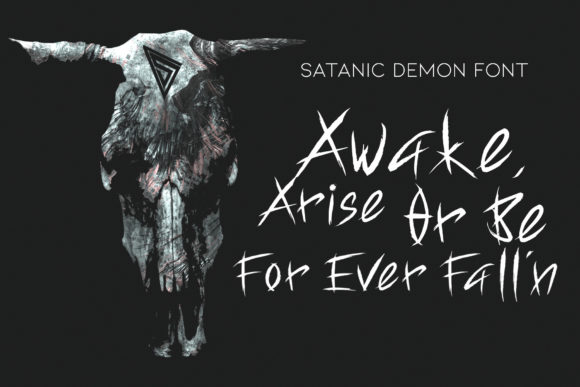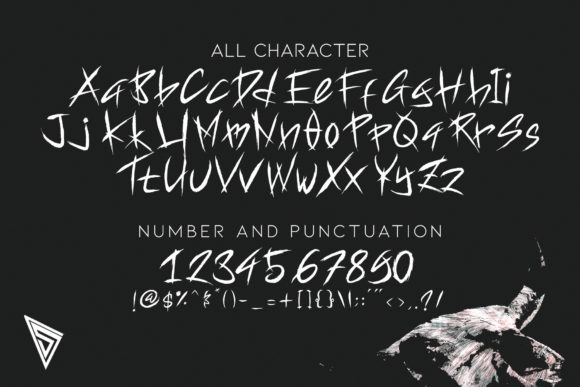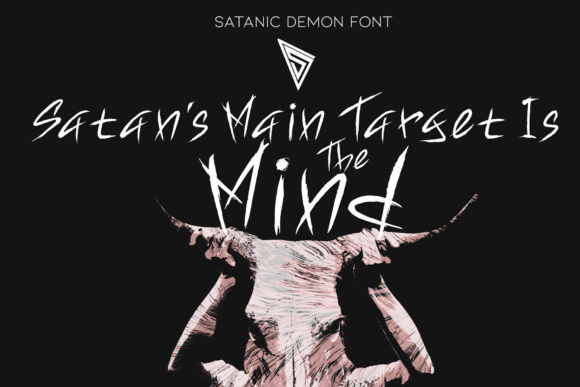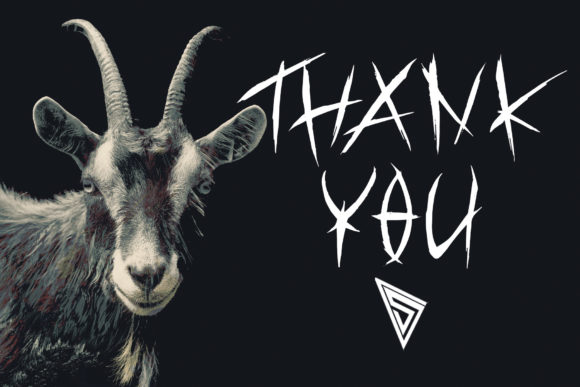
Introduction to Satanic Demon Font
Remember that moment when you’re brainstorming ideas for a creative project, and the perfect font just slips your mind? You’ve got the concept, the colors, and the design, but something’s missing – that one special touch that sets your work apart. For designers looking to add a touch of edginess to their projects, the Satanic Demon Font is here to save the day.
This unique handwritten font is perfect for those informal creative projects that need a high-quality, attention-grabbing font. With its bold and quirky style, the Satanic Demon Font is ideal for posters, postcards, product packaging, branding materials, and more. Whether you’re a seasoned designer or a hobbyist, this font is a valuable resource that can take your projects to the next level.
Key Features of Satanic Demon Font
- Unique and High-Quality Design: The Satanic Demon Font is a premium design resource perfect for creative projects, offering a unique and high-quality aesthetic that sets it apart from other fonts.
- Transparent Background: The font has a transparent background, allowing designers to easily layer it over other graphics or images without any visual obstructions.
- High Resolution: The font is available in high resolution, making it ideal for use in large-scale designs, such as billboards or posters.
- Unique Character Set: The Satanic Demon Font features a unique character set, including a range of demonic and occult-inspired symbols, making it perfect for projects that require a touch of darkness and mystery.
- Perfect for Horror and Fantasy Projects: The Satanic Demon Font is ideal for designers working on horror, fantasy, or supernatural-themed projects, adding a touch of eeriness and mystique to any design.
Honest Review: Satanic Demon Font
I recently stumbled upon the Satanic Demon Font, a design resource that’s perfect for those who want to add a touch of darkness to their creative projects. The font’s high quality is immediately noticeable, with sharp lines and bold letters that command attention.
- High-quality design that’s perfect for adding a touch of darkness to creative projects ✨
- Limited flexibility in terms of customization ⚠️
- Not ideal for projects that require a more subtle, understated design approach ⚠️
Overall, I’m impressed with the Satanic Demon Font’s bold design and user-friendly features. While it may not be suitable for every project, it’s a great resource for designers who want to add some edge to their work.
Satanic Demon Font is ideal for projects that require a dark, mystical, or gothic aesthetic. Some common use cases include:
- Dark fantasy artwork
- Horror-themed designs
- Gothic-inspired typography
- Occult-themed graphics